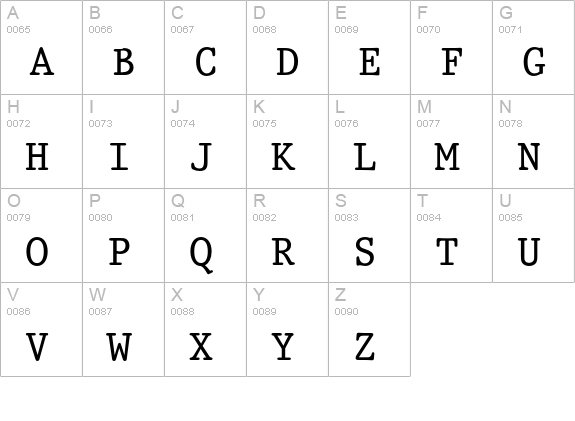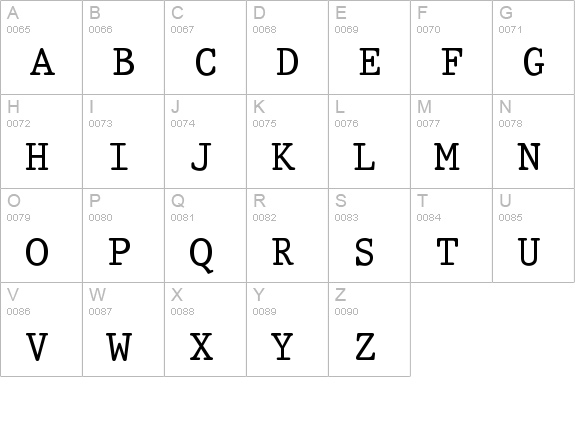
The Prestige 12 Pitch font is a classic and elegant typeface that exudes sophistication and professionalism. With its clean lines and perfect spacing, this font is perfect for any project that requires a touch of refinement. Whether you're designing a resume, a business presentation, or a formal invitation, Prestige 12 Pitch will elevate your work to the next level. Best of all, this font is available for free download at FontsMarket.com. Yes, you read that right - you can access this high-quality font at no cost, making it a valuable addition to your font collection. Don't miss out on the opportunity to enhance your designs with the timeless appeal of Prestige 12 Pitch font. Download it today and start creating stunning works of art!